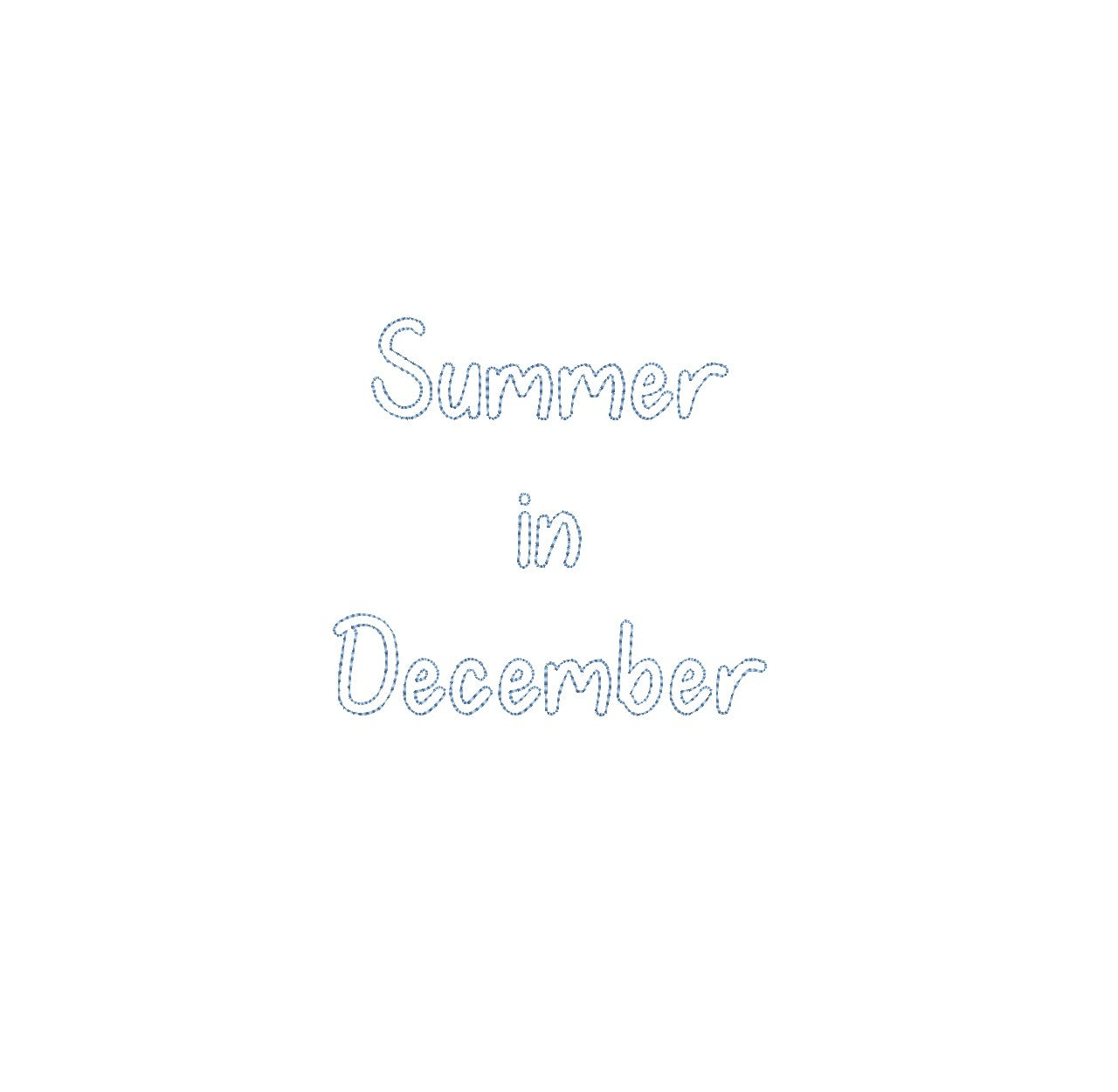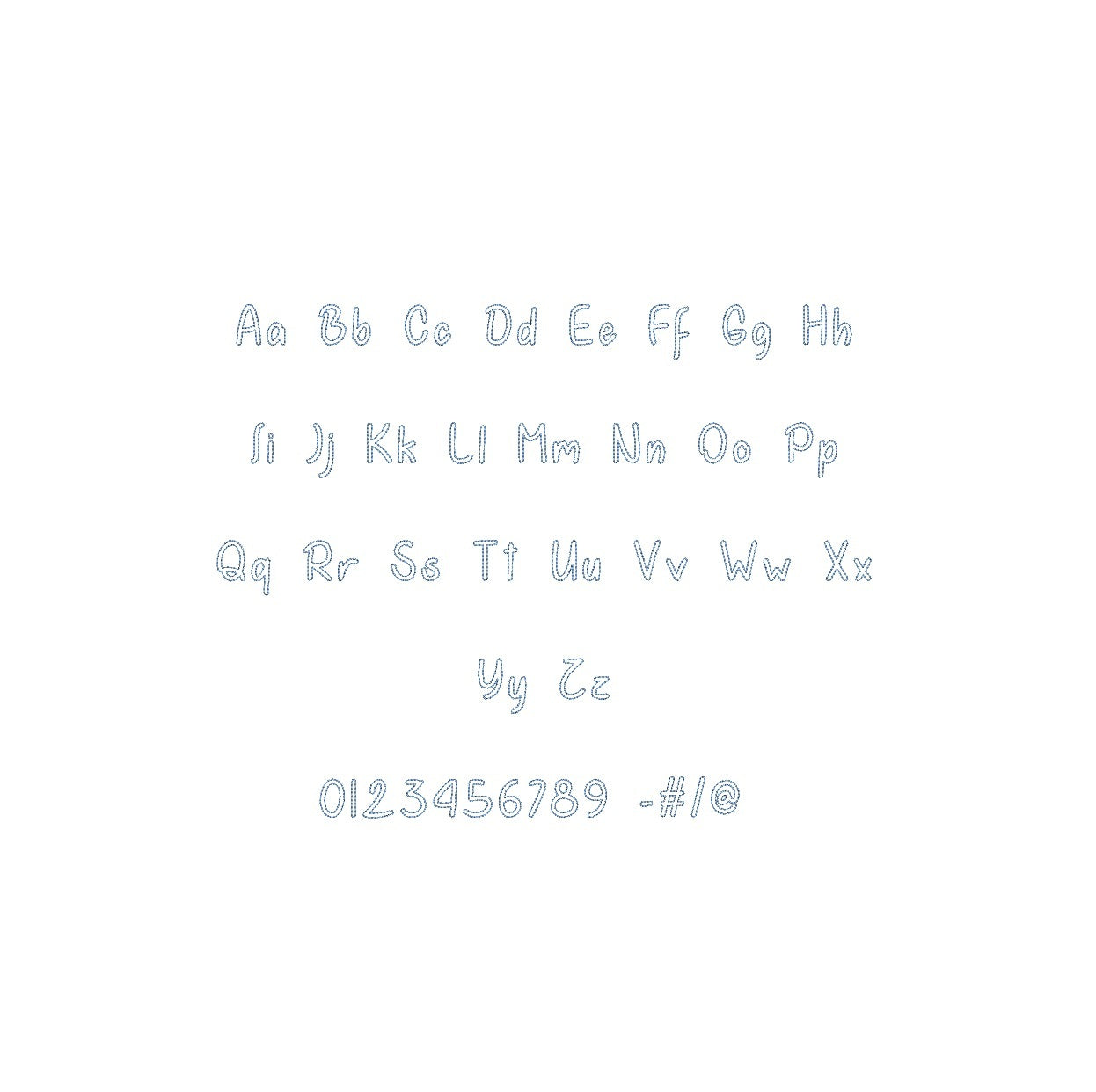
Elevate your embroidery with the Summer In December Bean Stitch Outline ESA font, compatible with Wilcom Studio e4.5.6 and Hatch 3 versions and up. This font captures the essence of warmth and joy, perfect for vibrant monograms and embellishments. Experience seamless compatibility for outstanding results and unleash a new level of stitching finesse. Transform your creations into embroidery masterpieces that radiate the spirit of summertime. Elevate your projects with the Summer In December Bean Stitch Outline ESA font and make your embroidery truly cheerful and memorable.